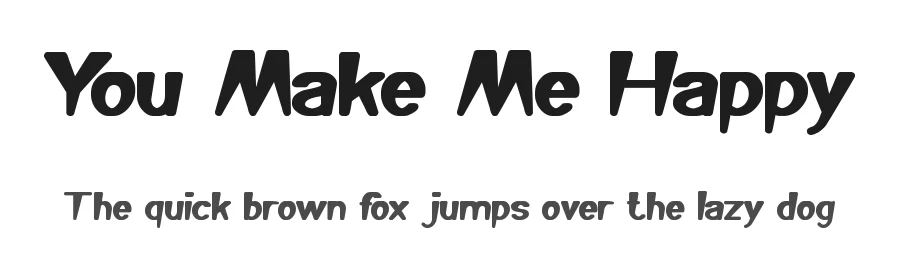
About Rapunzel Govermen Font
Rapunzel Govermen is a decorative font designed by Pidco Art. It includes 572 glyphs, a regular weight, OTF (CFF) format, and 217 languages. Rapunzel Govermen is free to download; check the license details on this page before commercial use. Decorative fonts like Rapunzel Govermen work best for logos, posters, packaging, and standout headlines.
Rapunzel Govermen Font is a decorative font that shines as a display or heading face. Pair it with a clean sans-serif or serif font for body text β the contrast creates a clear hierarchy while the two styles stay balanced and easy to read.
Rapunzel Govermen Font
by Pidco Art